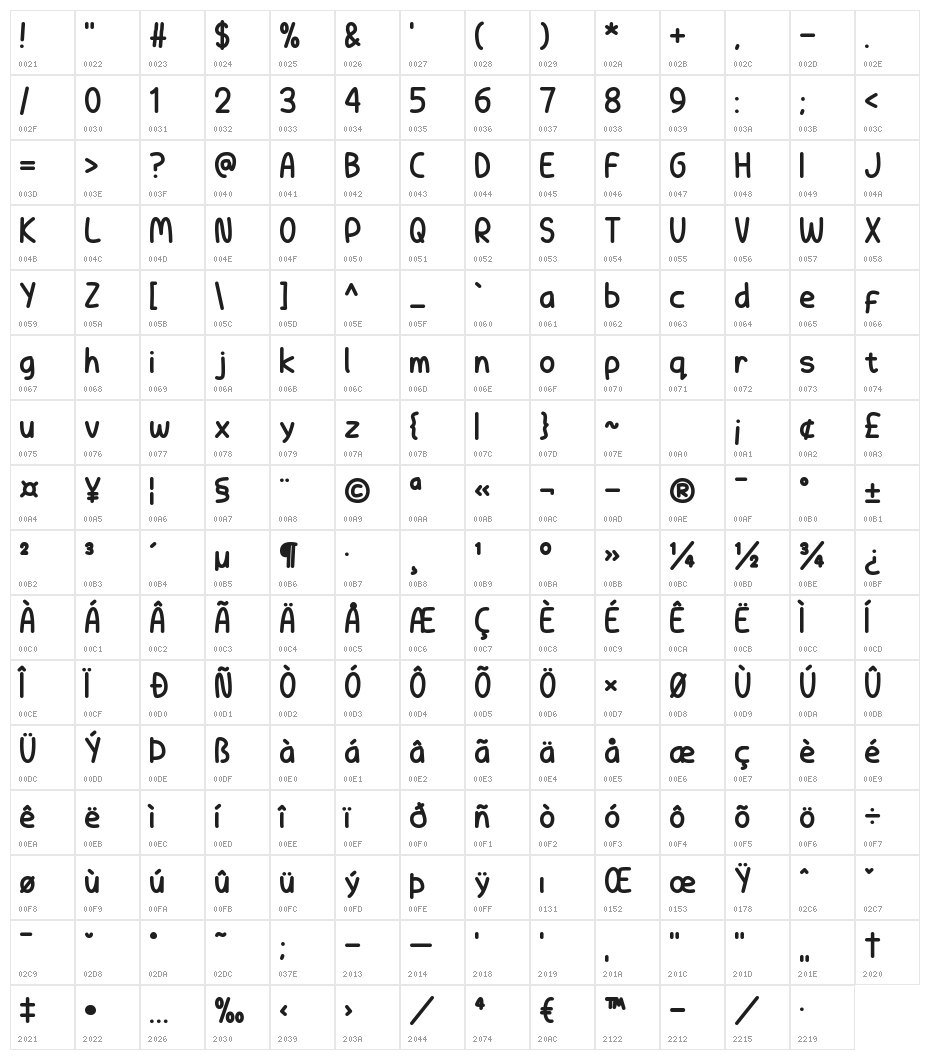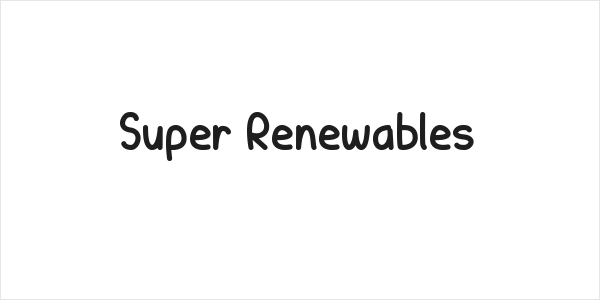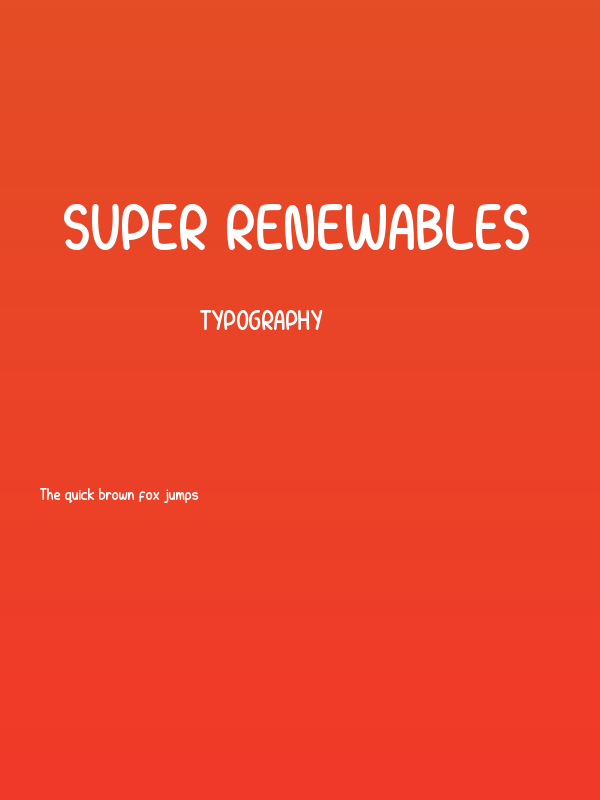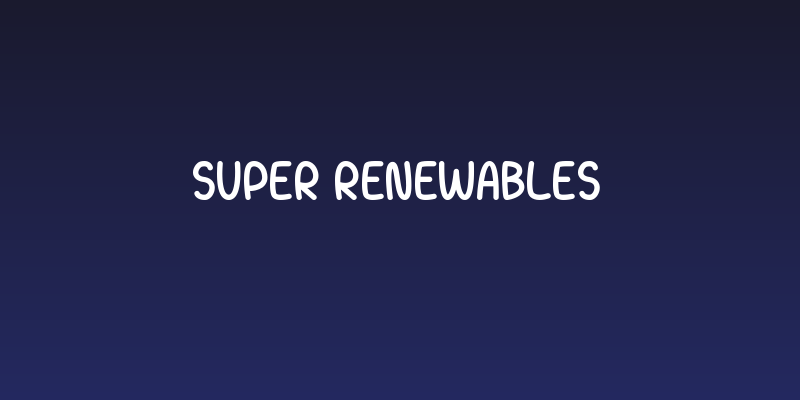
Super Renewables Font
Super Renewables Description
This playful and rounded font exudes a friendly and approachable vibe, with its smooth curves and consistent stroke width. The characters are bold and slightly condensed, giving them a compact appearance while maintaining readability. The uniformity in the letterforms creates a harmonious flow, making it suitable for various design applications. Its informal style is perfect for projects that aim to convey warmth and friendliness. The font includes a full set of uppercase and lowercase letters, numerals, and a variety of special characters, ensuring versatility in use.
| Proposed Projects | Ideal for children's books, playful branding, casual invitations, and social media graphics. |